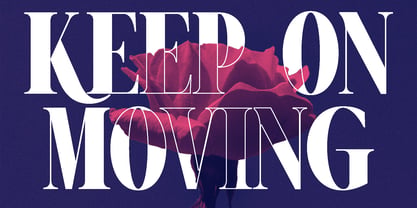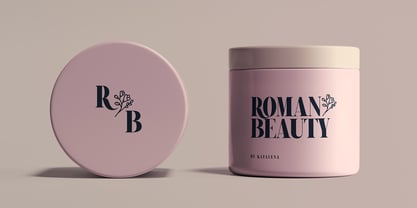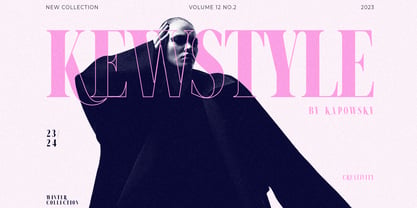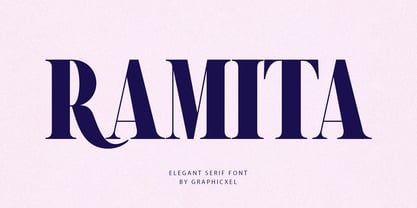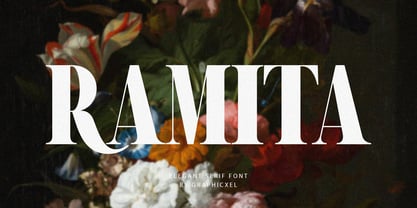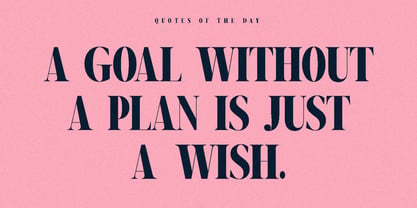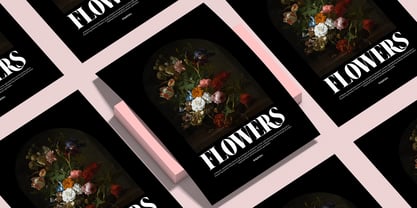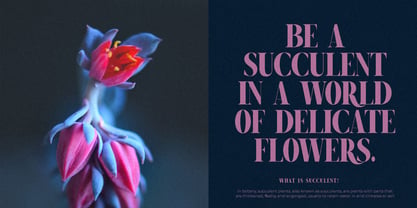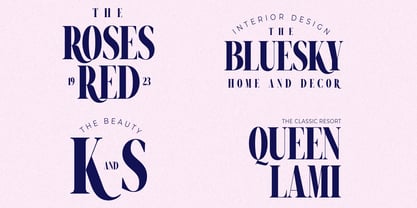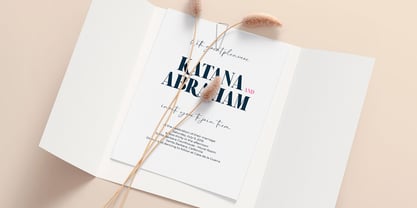
Ramita
by Graphicxell
Ramita Elegant Serif Font – Timeless Style for Modern Brands
Ramita Elegant Serif is a beautiful modern serif font designed to add a refined and classic touch to any creative project. It features smooth, balanced letter shapes and stylish ligatures that not only look great but also improve readability. Because of this, it’s an excellent choice for anyone wanting a font that feels both fresh and elegant.
Whether you are creating a luxury logo, designing a boutique brand, or working on a clean magazine layout, Ramita brings sophistication to every word. Its clear lines and balanced contrast make the text easy to read. At the same time, its graceful curves and fine details make your message stand out.
What makes Ramita even better is how flexible it is. You can use it on product packaging, fashion lookbooks, or editorial projects. Besides print, it works perfectly on websites and invitations. Thanks to its polished look and smart ligatures, this font lifts your design to the next level.
✒️ Why Ramita Is Special:
• Smooth and elegant letter shapes that create a calm and stylish feel
• Balanced proportions that work well for both headlines and body text
• Clear contrast between thick and thin parts to add interest without clutter
• Carefully designed ligatures that help letters flow naturally together
• Simple but classy style, mixing modern looks with classic serif charm
• Works well in many settings like brands, magazines, packaging, and online use
• High-quality design that stays sharp on screens and prints
• A timeless look that fits both new and vintage-inspired designs
🎯 Best Uses for Ramita:
• Luxury logos for fashion, beauty, and jewelry brands
• Upscale product packaging like skincare, candles, or gourmet foods
• Branding for small businesses and personal projects
• Magazine and editorial design for lifestyle, travel, or beauty
• Wedding invitations and elegant stationery
• Website headers and portfolio text
• Social media posts and ads that need a stylish touch